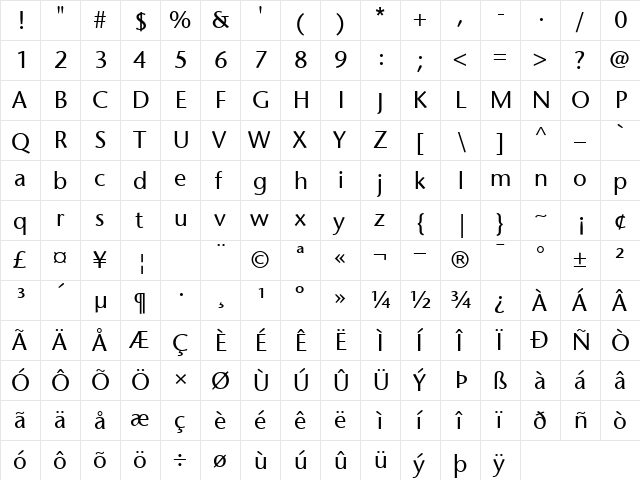
ITCStoneSans Roman
Design Context for ITCStoneSans Typeface
ITCStoneSans offers clean, dependable letterforms without strong stylistic allegiance, making it a practical choice for designers who need flexibility.
Pro Tip: Use ITCStoneSans in both headline and body roles to test its range before committing to a single application.